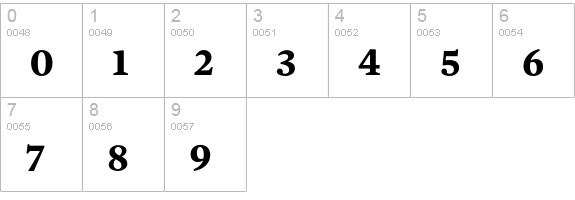
Mercury Text G1 Bold Font Details
Mercury Text G1 Bold is a strong, high-contrast variant in the Mercury typeface family \xE2\x80\x94 well suited to headlines, attention-grabbing titles, and strong calls-to-action.
Mercury Text G1 Bold font is a versatile and modern typeface that exudes confidence and strength. With its bold and impactful design, this font is perfect for making a statement in any project. Whether you are creating a poster, logo, or website, Mercury Text G1 Bold will surely catch the eye of your audience. The best part is that Mercury Text G1 Bold font is available for free download at FontsMarket.com. This means that you can easily access this high-quality font without any cost, making it a valuable addition to your font collection. Don't miss out on the opportunity to enhance your designs with the bold and striking Mercury Text G1 Bold font today!